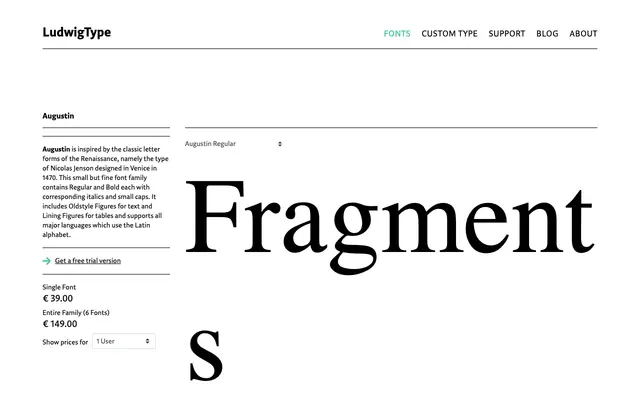
Augustin
A two-weight text serif from Ludwig with full small caps and italics, pitched at book and literary typography.
Six styles cover Regular and Bold each with a matching italic and small caps cut, giving editors and book designers a compact but functional family for continuous reading. The specimen samples lean on literary and philosophical texts, suggesting a classical disposition suited to long-form setting. Without condensed or display variants it stays focused on the page rather than identity or headline work.
Augustin presents as a classical text serif with small caps and italics across two weights, suited to book and editorial typography in the humanist or old-style tradition.